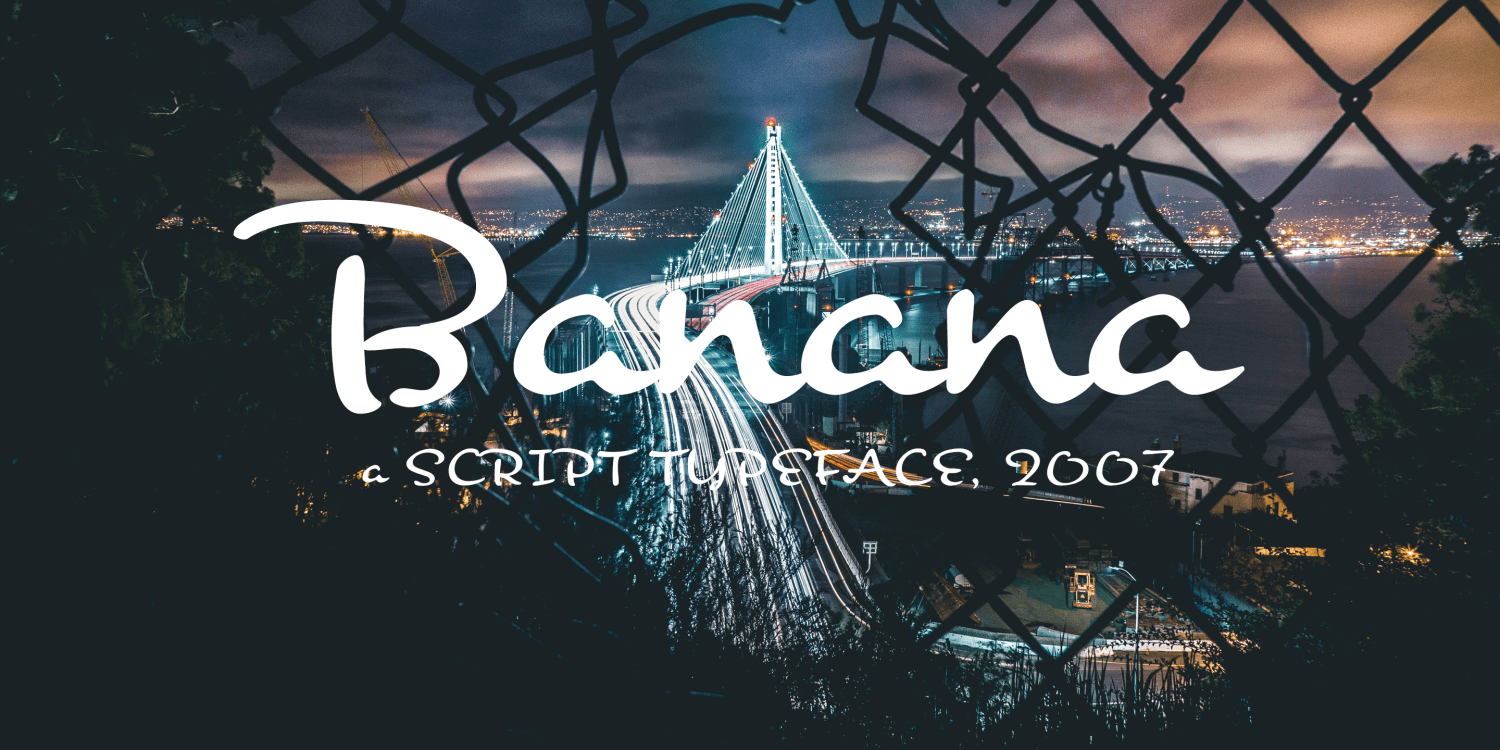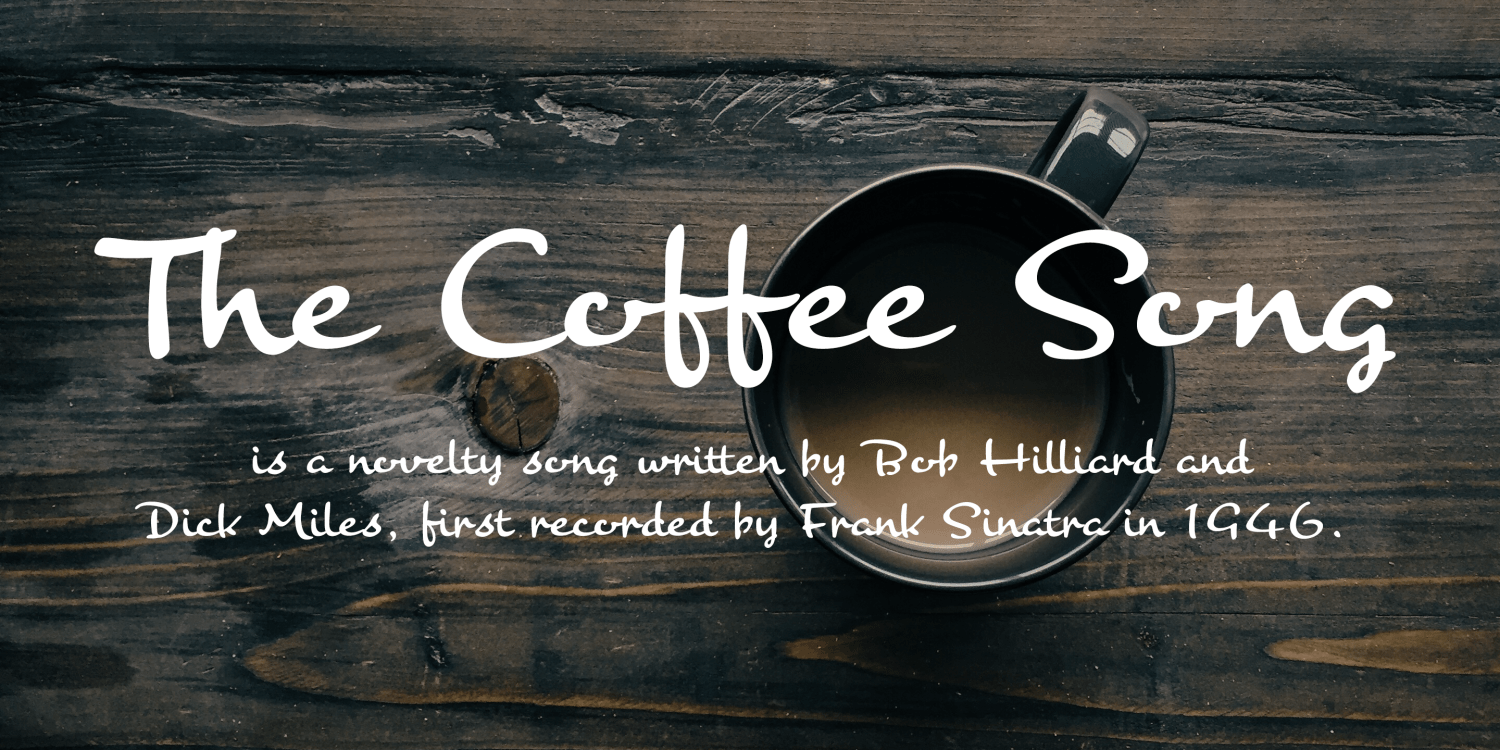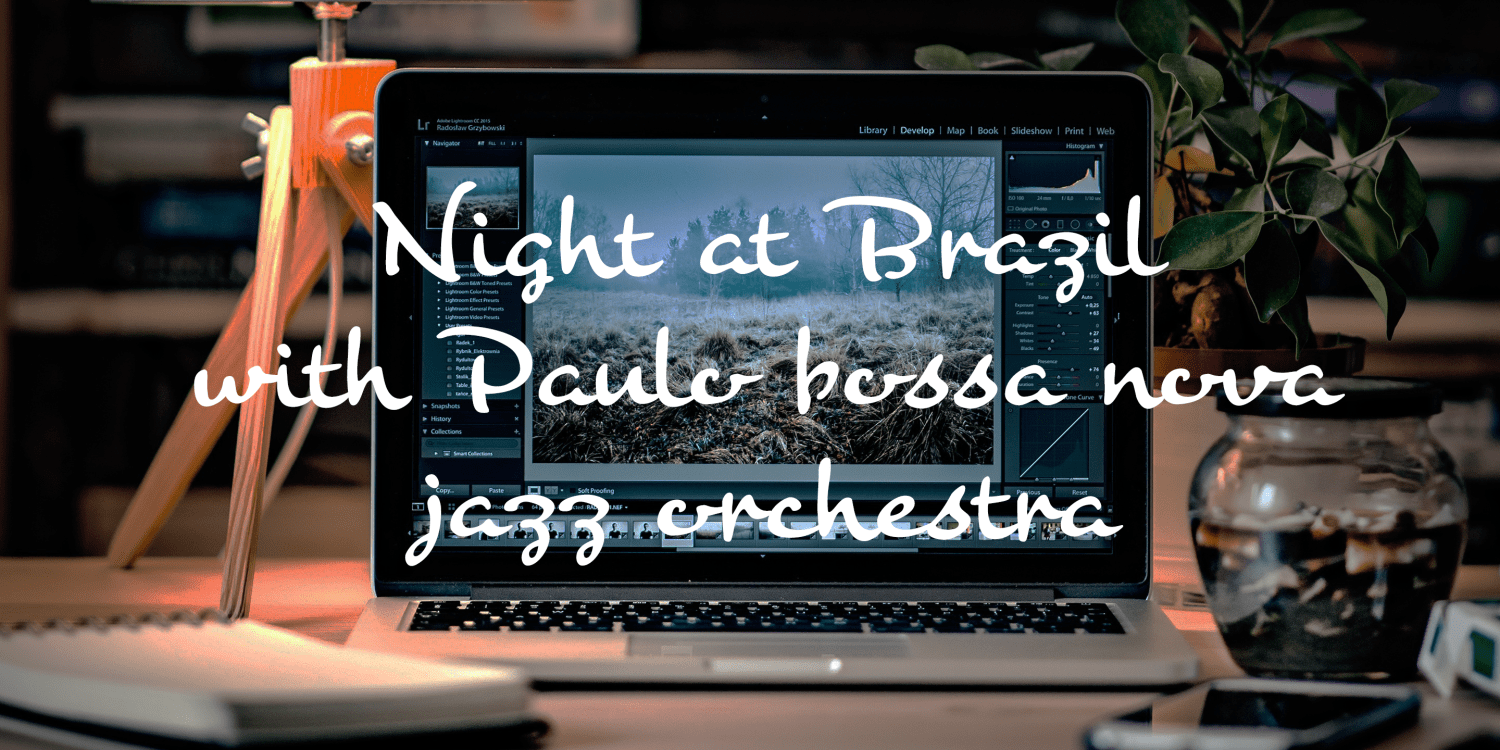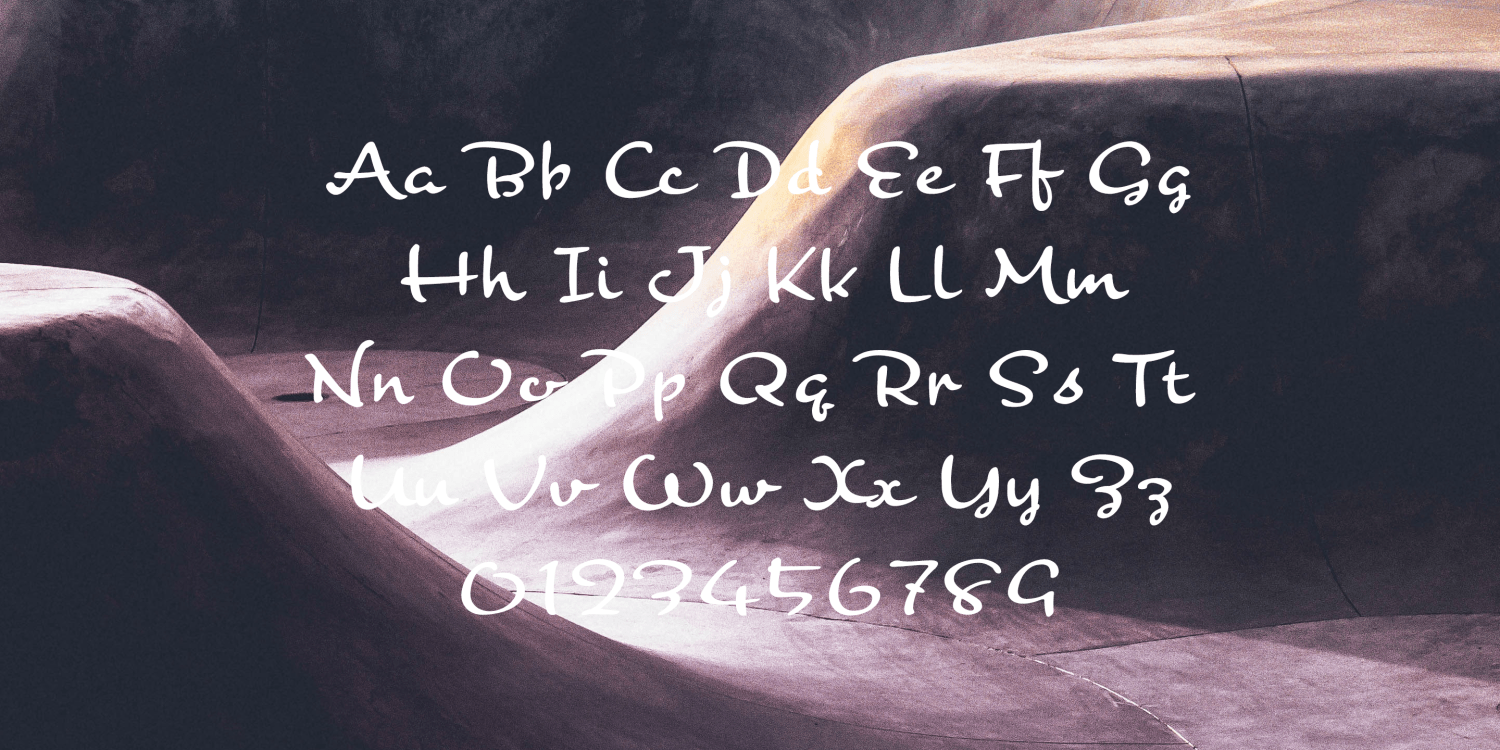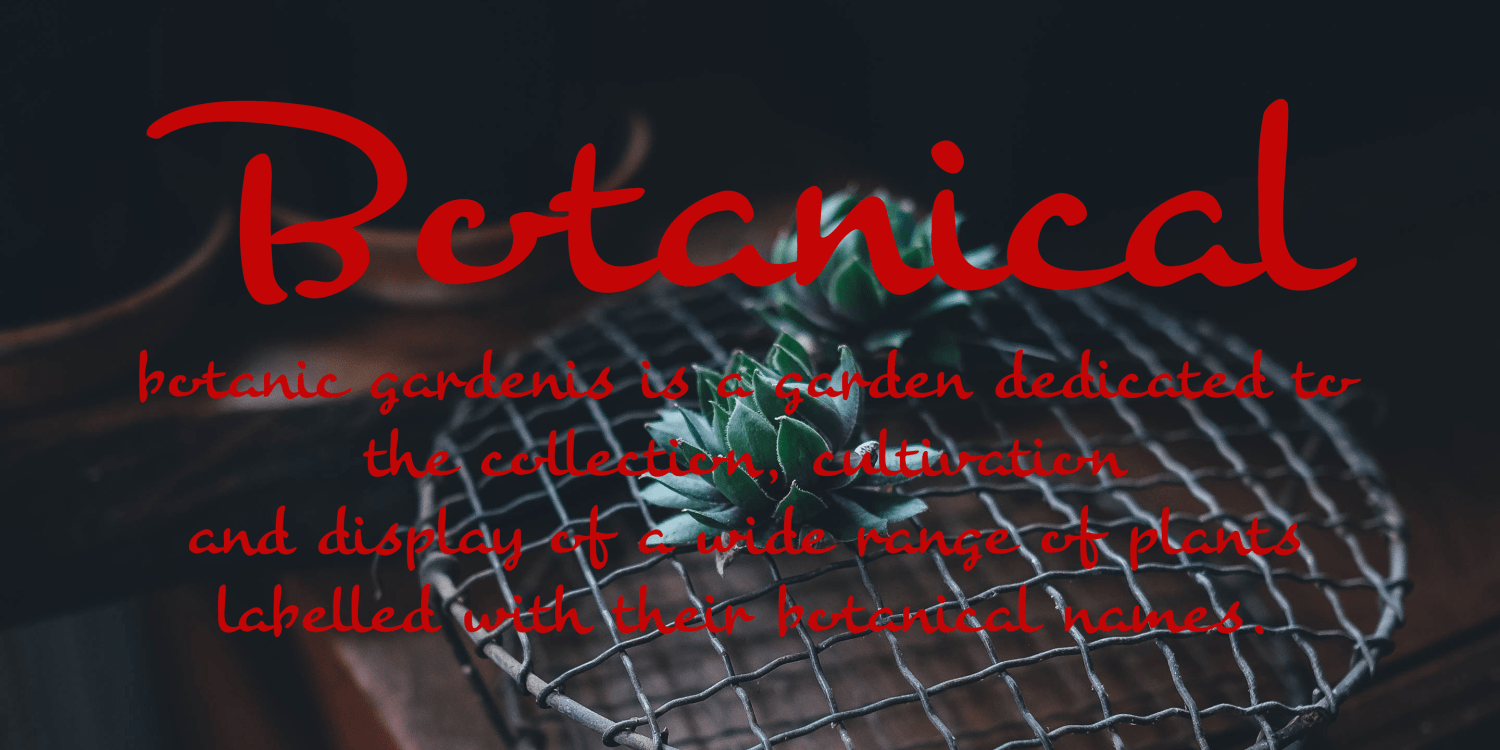
Banana
Font Family by Dharma Type
This typeface leaves a strong impression with its heavy, rounded shapes.
Its upright stems and wide letterforms create a sense of ease and calm, making it feel steady, approachable, and unhurried.